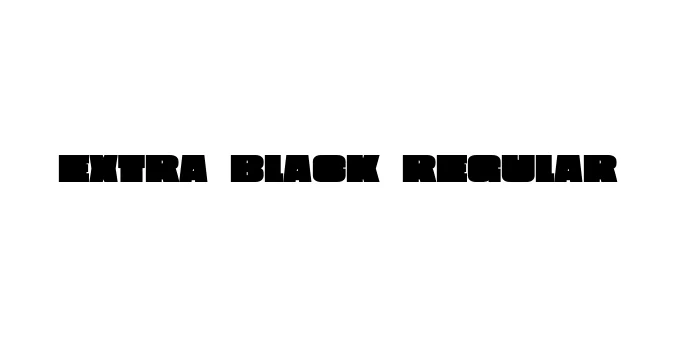
Extra Black Regular
Designed by Linotype Design Studio
| Category | Sans Serif / Display |
| Designer | Linotype Design Studio |
Extra Black Regular is a powerhouse of a typeface, originally conceived to push the boundaries of visual weight in modern typography. Developed as part of the expansion of sans-serif families in the mid-20th century, this font was engineered to provide maximum impact in advertising and editorial headlines where space was at a premium but visibility was paramount.
Over the decades, the font has become a staple for designers looking to create bold branding and assertive messaging. Its thick strokes and minimal counters offer a distinct industrial feel, making it an ideal choice for large-scale print applications, high-contrast digital displays, and contemporary logo design that requires a sense of strength and permanence.
Extra Black Regular Best Uses
Perfect for eye-catching billboards and large-scale promotional banners.
Provides a solid, authoritative base for modern brand identities.
Ideal for magazines and newspapers requiring high-impact title sequences.